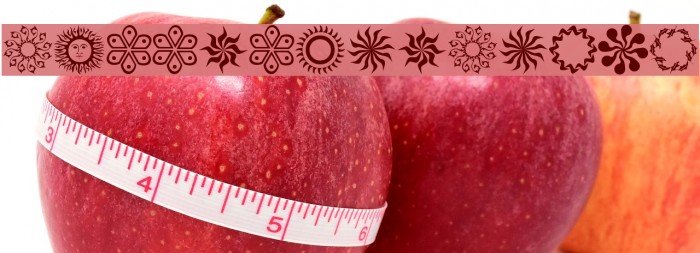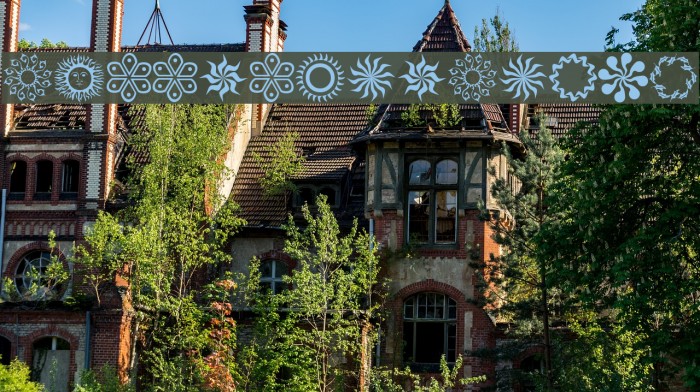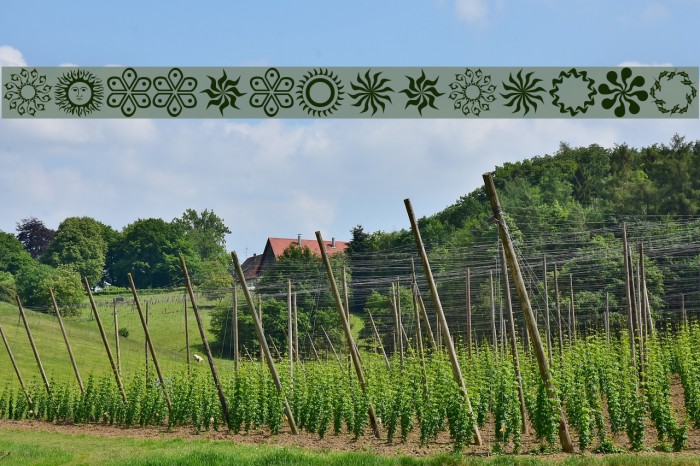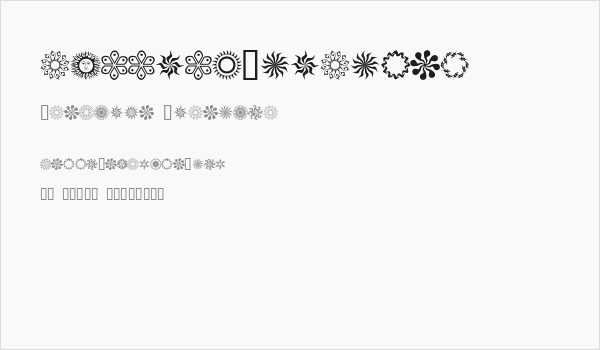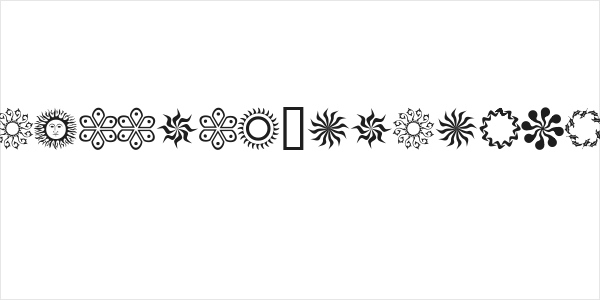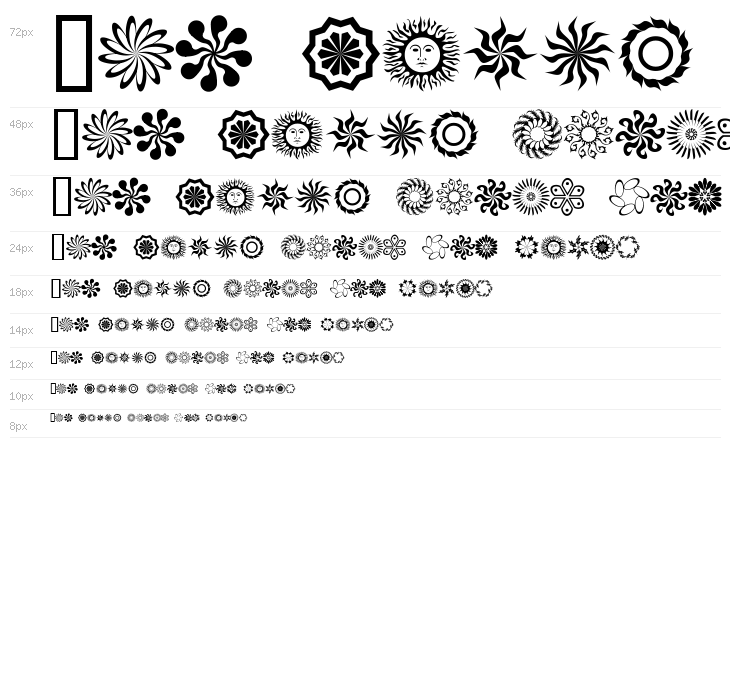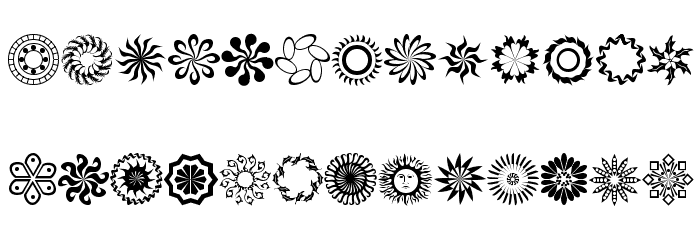
runningNcircles Font
runningNcircles Description
A decorative dingbat font featuring a variety of intricate circular and floral motifs, each glyph presenting a unique ornamental design with radial symmetry and playful, organic shapes.
| Overall Style | Decorative, Playful, Ornamental |
| Use Case | Decorative elements, Borders, Accents |
| Proposed Projects | Invitations, decorative borders, scrapbooking, logo embellishments, packaging, and digital art. |